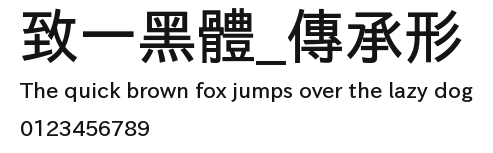
致一黑體_傳承形 Preview
• Font Name: 致一黑體_傳承形
• Full Font Name: 致一黑體_傳承形 Bold
About 致一黑體_傳承形.ttf
致一黑體_傳承形.ttf is a modern, elegant sans-serif font designed for ultimate readability and visual harmony. Perfect for branding, headlines, web design, and print materials.